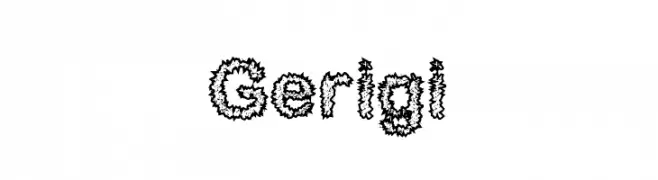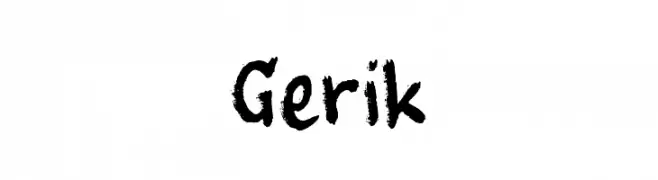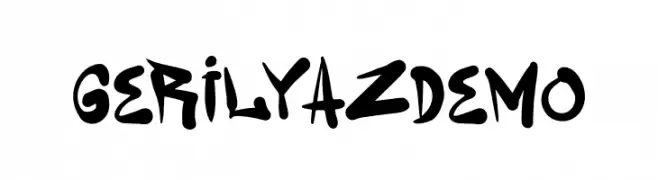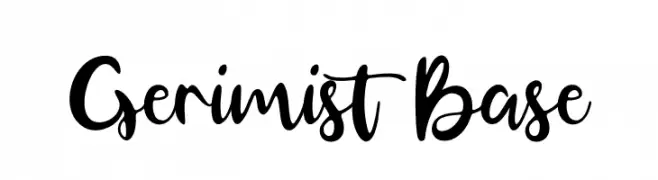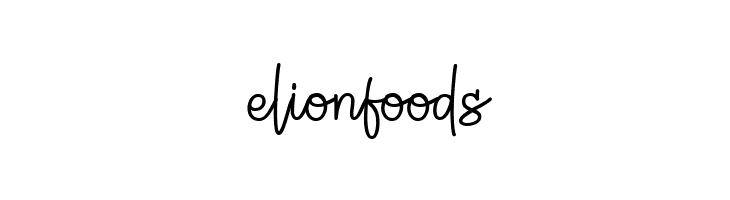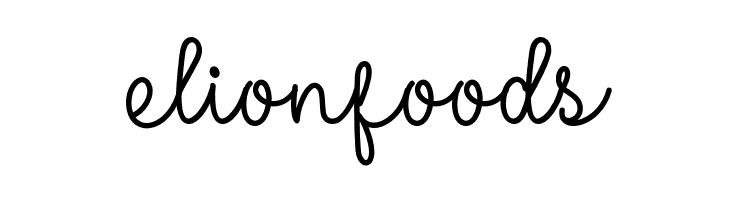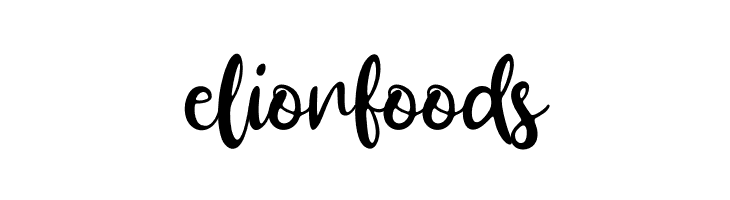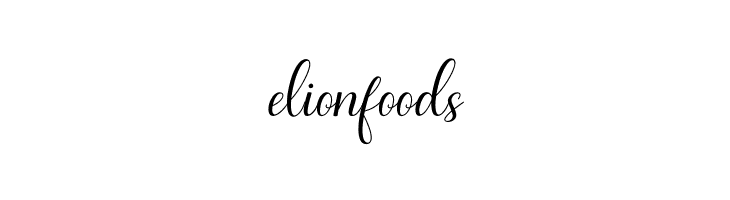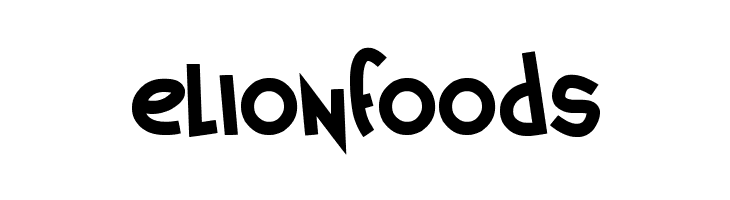
A decorative, gear-like font with jagged edges and a bold, industrial aesthetic.
A bold, textured handwritten font with a playful and dynamic style.
A flowing, cursive font with elegant, sweeping strokes and decorative flourishes.
A bold, expressive handwritten font with dynamic and playful letterforms.
A bold, dynamic handwritten font with playful, energetic strokes.
A bold, flowing script font with a handwritten, artistic style.
A bold, cursive handwritten font with dynamic and playful strokes.
A bold, expressive handwritten font with fluid, interconnected strokes.
A bold, expressive handwritten font with a playful, cursive style.